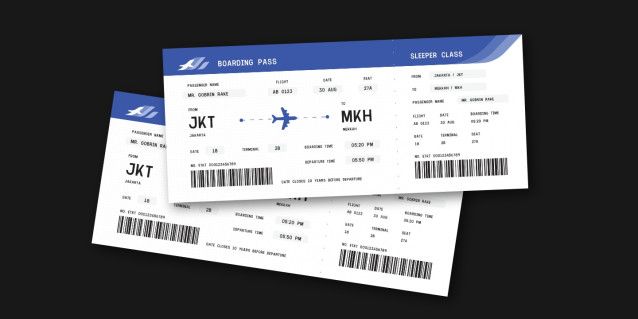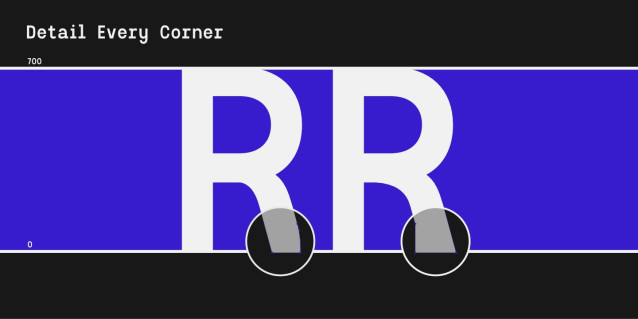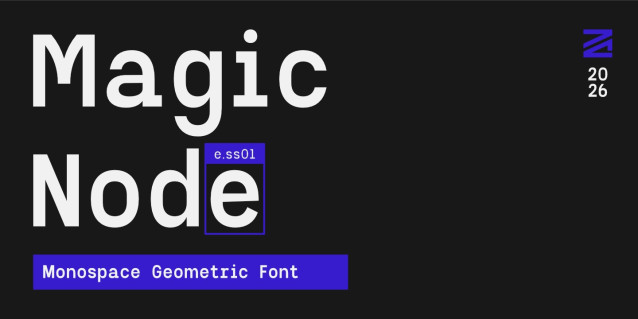
ZIA Magic Node Font
ZIA Magic Node is a clean, modern, and precise monospace geometric font designed by Zia Creative Studio to transform technical boundaries into sleek visual aesthetics. Its sharp geometric structure, fixed-width proportions, and versatile OpenType features make it the ultimate tool for tech-driven branding, digital interfaces, coding aesthetics, and futuristic visual communication.
Perfect for:
• Tech & Software Branding
• Web Design & Code Displays
• Cyberpunk & Futuristic Posters
• UI/UX Dashboards & Mobile Apps
• Editorial Tech Magazines & Book Covers
• OpenType Features & Stylistic Sets